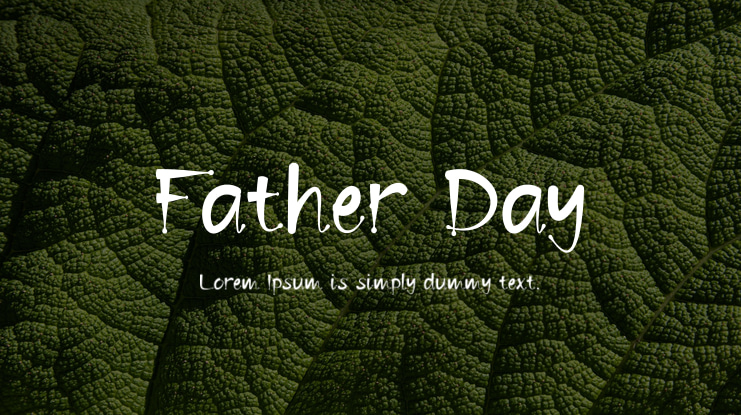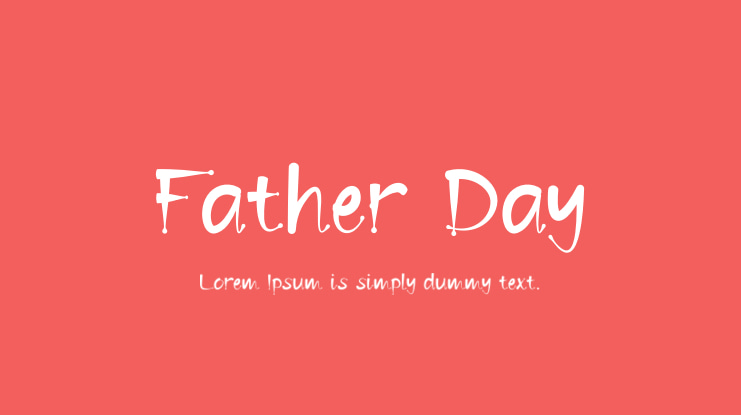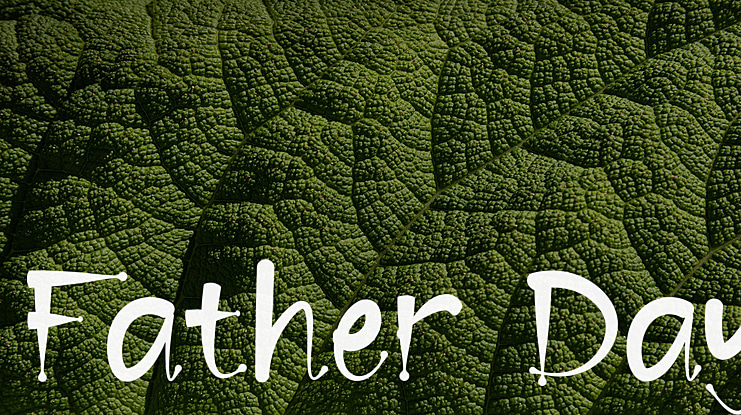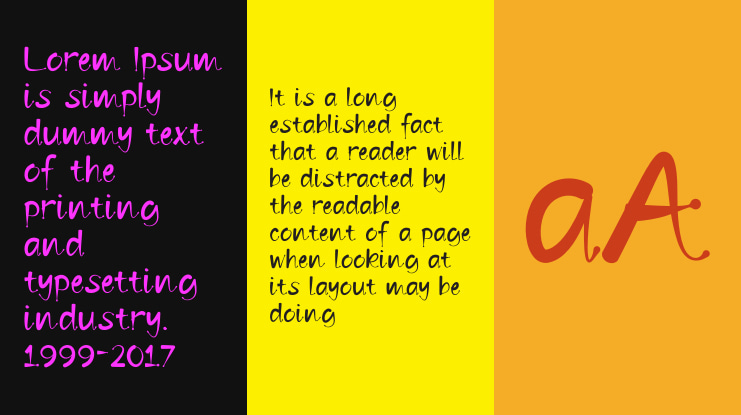
Father Day Font
Father Day is a cool, adaptable and neat handwritten font. It is the best choice for creating eye catching logos, branding and quotes. Every letter has a unique and beautiful touch, which will make your design come alive!
Muhammad Nashrul Aziz